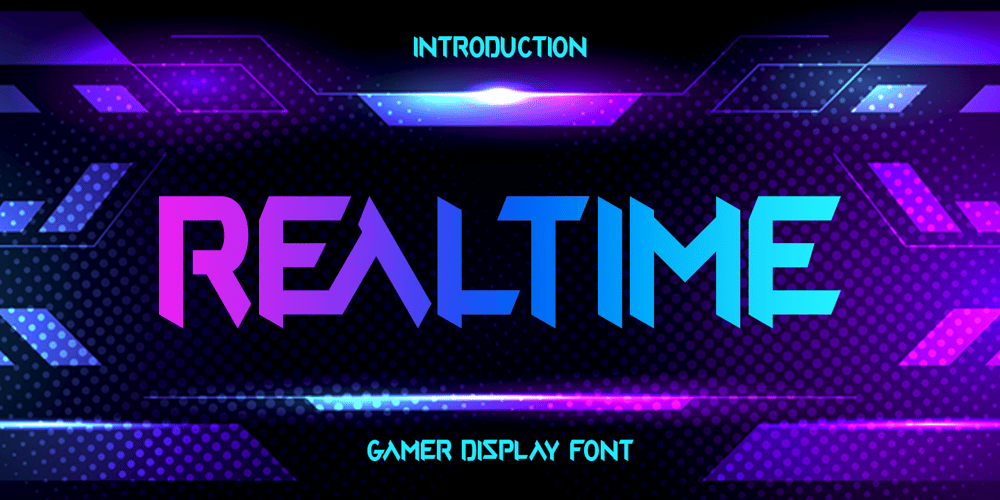
Realtime Gamer Font Family was designed by Aditiyo Dwi Putranto and published by Creaditive Design. Realtime Gamer contains 2 styles and family package options. Realtime is a cool, thick lettered and robotic display font. This font is ideal for writing web designs, business cards, or pretty much anything else that requires a techno and bold touch.